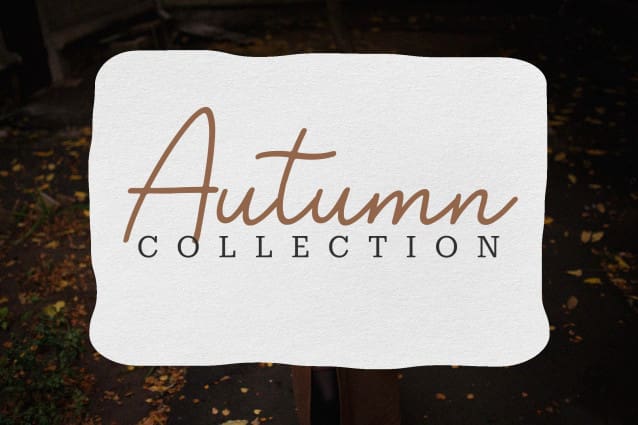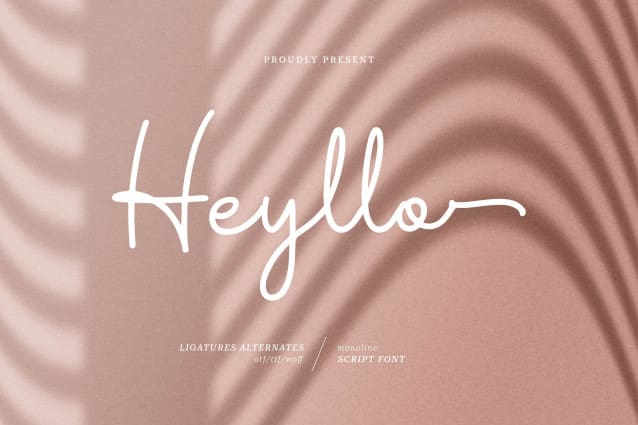
Heyllo Handwritten Font
Heyllo Handwritten Font, from Denustudios, suitable for any projects such as: logos, branding projects, homeware designs, product packaging, mugs, quotes, posters, shopping bags, t-shirts, book covers, name card, invitation cards, greeting cards, label, photography, watermark, special events, and all your other lovely projects that need a handwritten script taste.